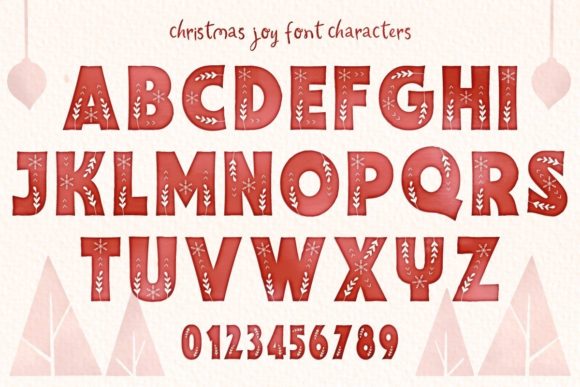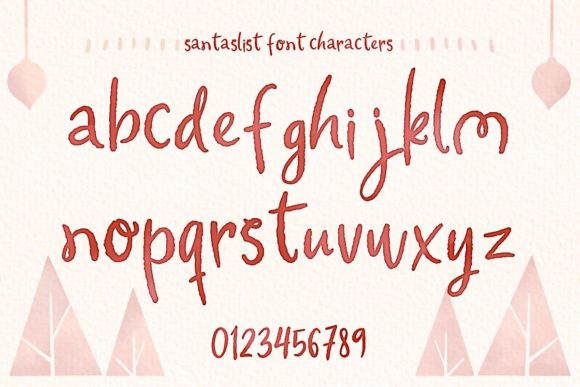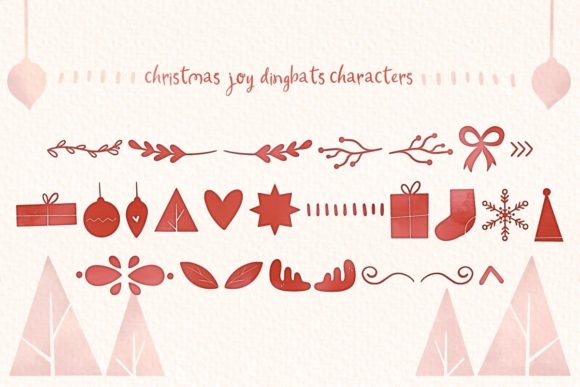
Introducing Christmas Joy Pack Font: Add a Touch of Festive Fun to Your Designs
Are you looking for a unique and creative way to add some holiday cheer to your designs? Look no further than the Christmas Joy Pack Font! This delightful font pack is perfect for designers and crafters who want to add a touch of festive fun to their projects. In this article, we’ll take a closer look at what makes Christmas Joy Pack Font so special and how you can use it to make your designs shine.
What is Christmas Joy Pack Font?
Christmas Joy Pack Font is a creative and playful handmade font pack that includes a range of dingbats characters. These characters are designed to bring a touch of festive fun to your designs, with beautiful snowflakes, twigs, and other holiday-themed elements. The font pack includes a range of cute dingbats characters, such as presents, leaves, twigs, ornaments, snowflakes, Christmas stockings, and more.
Features of Christmas Joy Pack Font
- Handmade with love: Each character in the Christmas Joy Pack Font has been carefully crafted by hand, giving it a unique and personal touch.
- Dingbats included: The font pack includes a range of dingbats characters, perfect for adding a touch of festive fun to your designs.
- Beautiful snowflakes and twigs: The font characters include beautiful snowflakes and twigs, perfect for creating winter wonderland-themed designs.
- Cute holiday characters: The font pack includes a range of cute holiday characters, such as presents, leaves, ornaments, snowflakes, and Christmas stockings.
- Perfect for Christmas designs: This font pack is perfect for designers and crafters who want to create festive and fun Christmas designs.
Uses for Christmas Joy Pack Font
So, how can you use Christmas Joy Pack Font in your designs? The possibilities are endless! Here are a few ideas to get you started:
- Product printing: Add a touch of festive fun to your product printing, such as on Christmas gifts, cards, and wrapping paper.
- Social media posts: Use the font pack to create fun and festive social media posts, perfect for Christmas promotions and sales.
- Christmas sales: Create eye-catching Christmas sales graphics using the font pack, complete with cute holiday characters and snowflakes.
- Crafting projects: Use the font pack to add a touch of festive fun to your crafting projects, such as on scrapbook pages, cards, and gift tags.
Why Choose Christmas Joy Pack Font?
So, why choose Christmas Joy Pack Font over other font packs? Here are a few reasons:
- Unique and creative: The font pack is handmade and features unique and creative characters that will add a touch of festive fun to your designs.
- Versatile: The font pack can be used for a range of design projects, from product printing to social media posts.